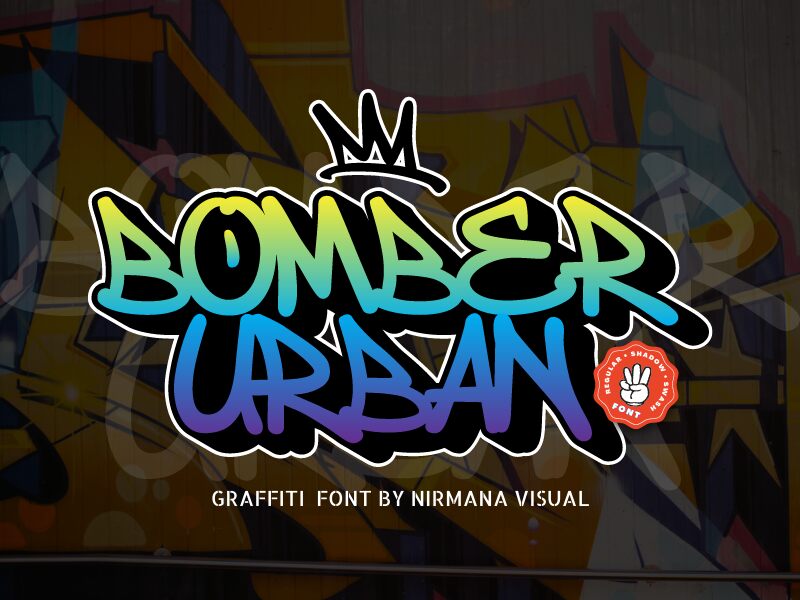
Bomber Urban Regular
Bomber Urban, a striking graffiti-inspired font designed by Nirmana Visual, commands attention with its bold, dynamic strokes and raw, rebellious charm. This typeface exudes an unapologetic energy, evoking the spirit of urban culture and the unrestrained expression found on city walls. Its distinctive letter forms, with their sharp angles and organic fluidity, create a visually captivating and instantly recognizable aesthetic that is sure to leave a lasting impression.
The Bomber Urban font's versatility makes it a compelling choice for a diverse range of design applications. Its bold, attention-grabbing presence lends itself particularly well to branding, packaging, and promotional materials, where it can effectively convey a sense of edgy, youthful dynamism. Additionally, this font's striking visual impact can be harnessed to create impactful headlines, logos, and typographic art, making it a valuable asset for designers seeking to craft bold, memorable designs.